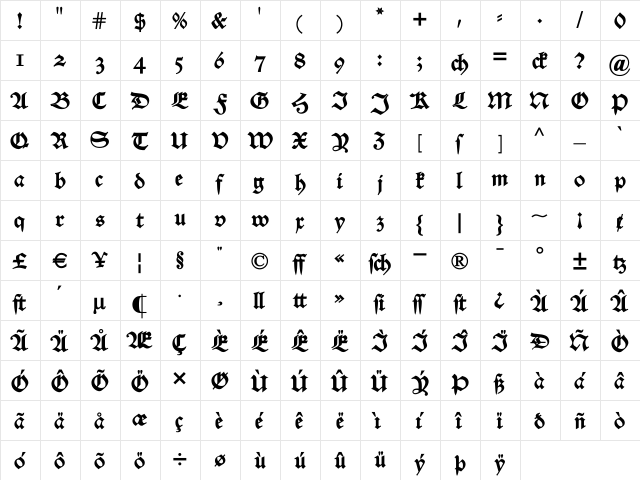
Alte Schwabacher OSF DemiBold
Design Context for Alte Schwabacher OSF Typeface
Alte Schwabacher OSF is a composed and adaptable typeface that performs quietly and consistently across a wide range of design contexts. Its bold stroke weight gives it real presence on the page.